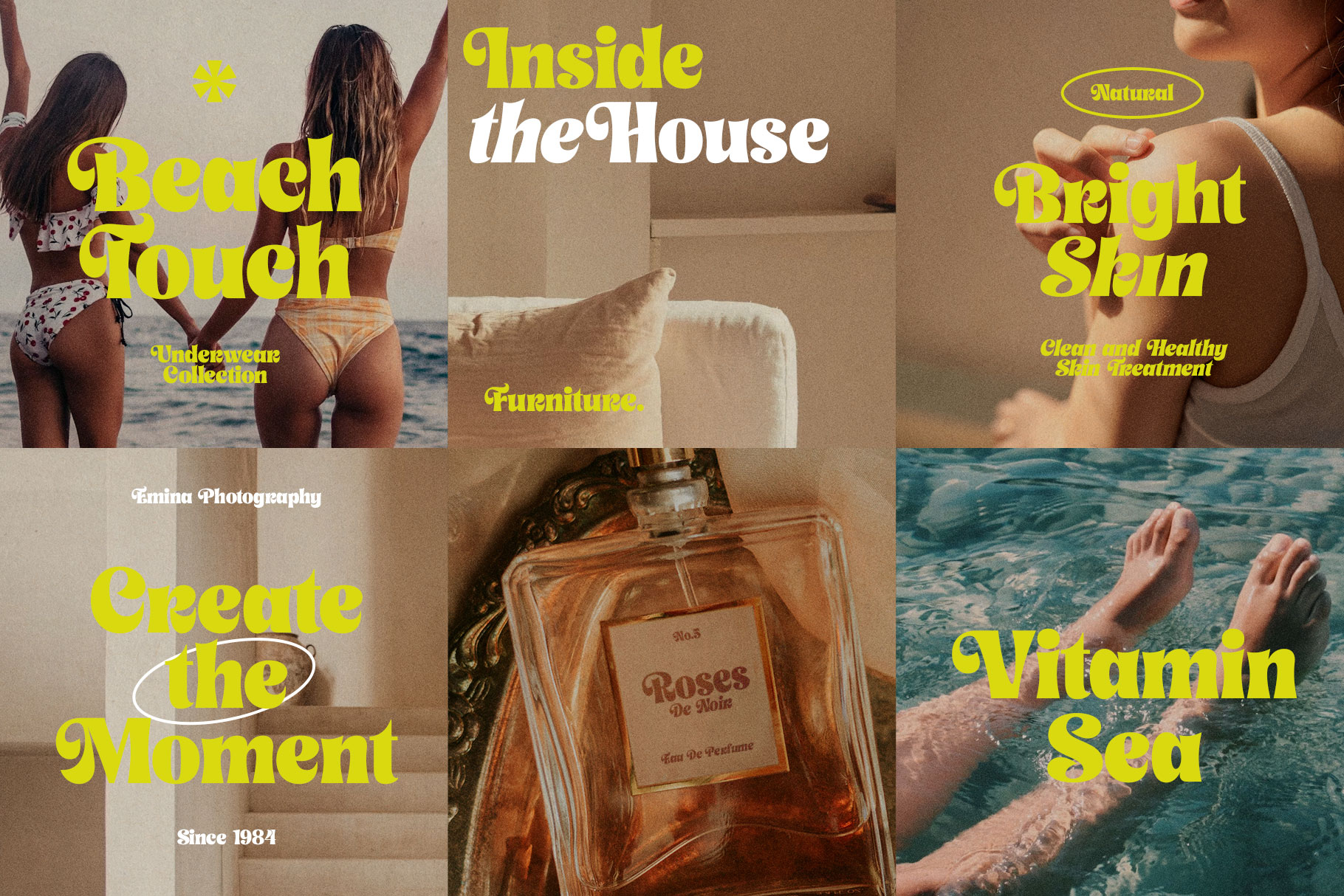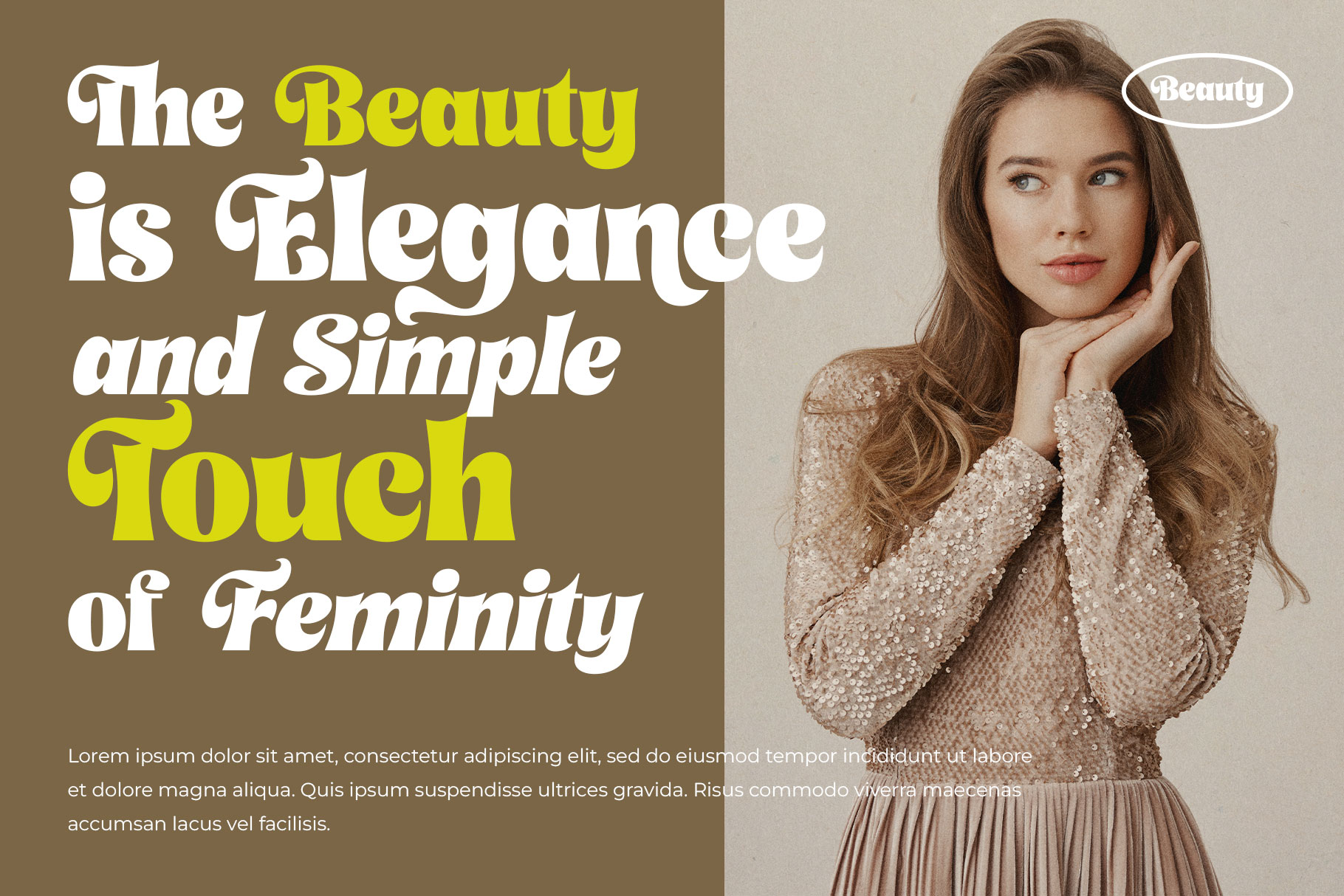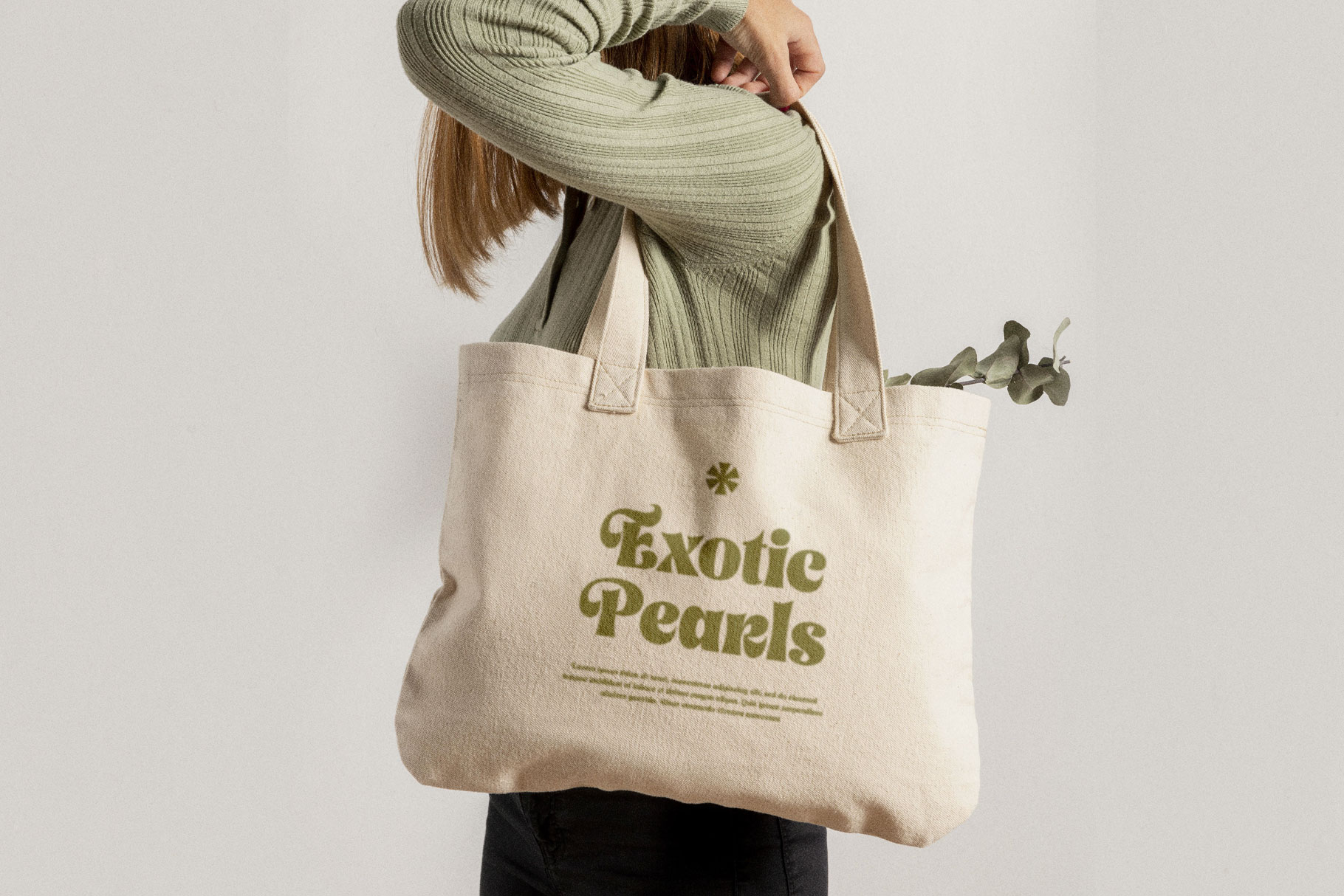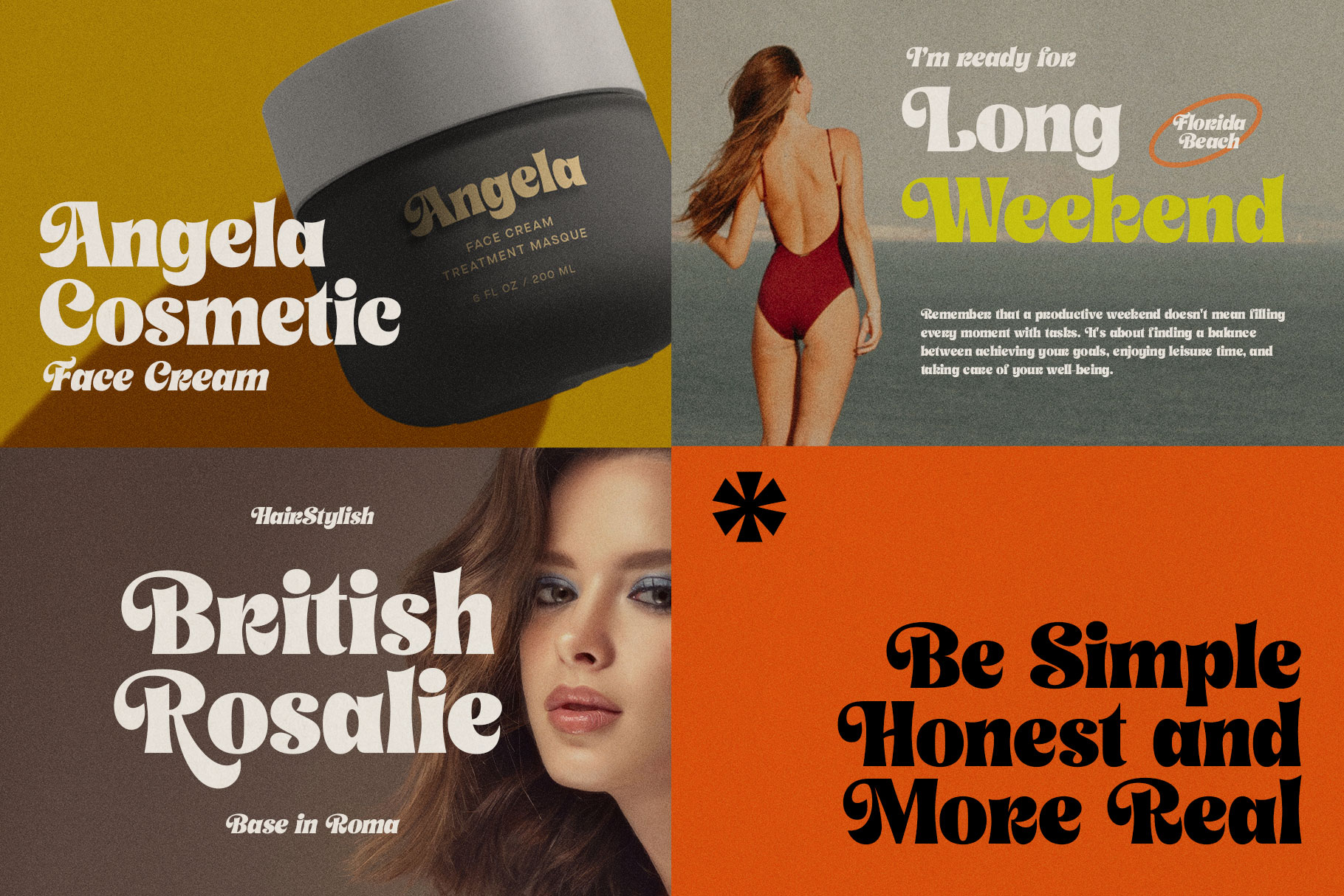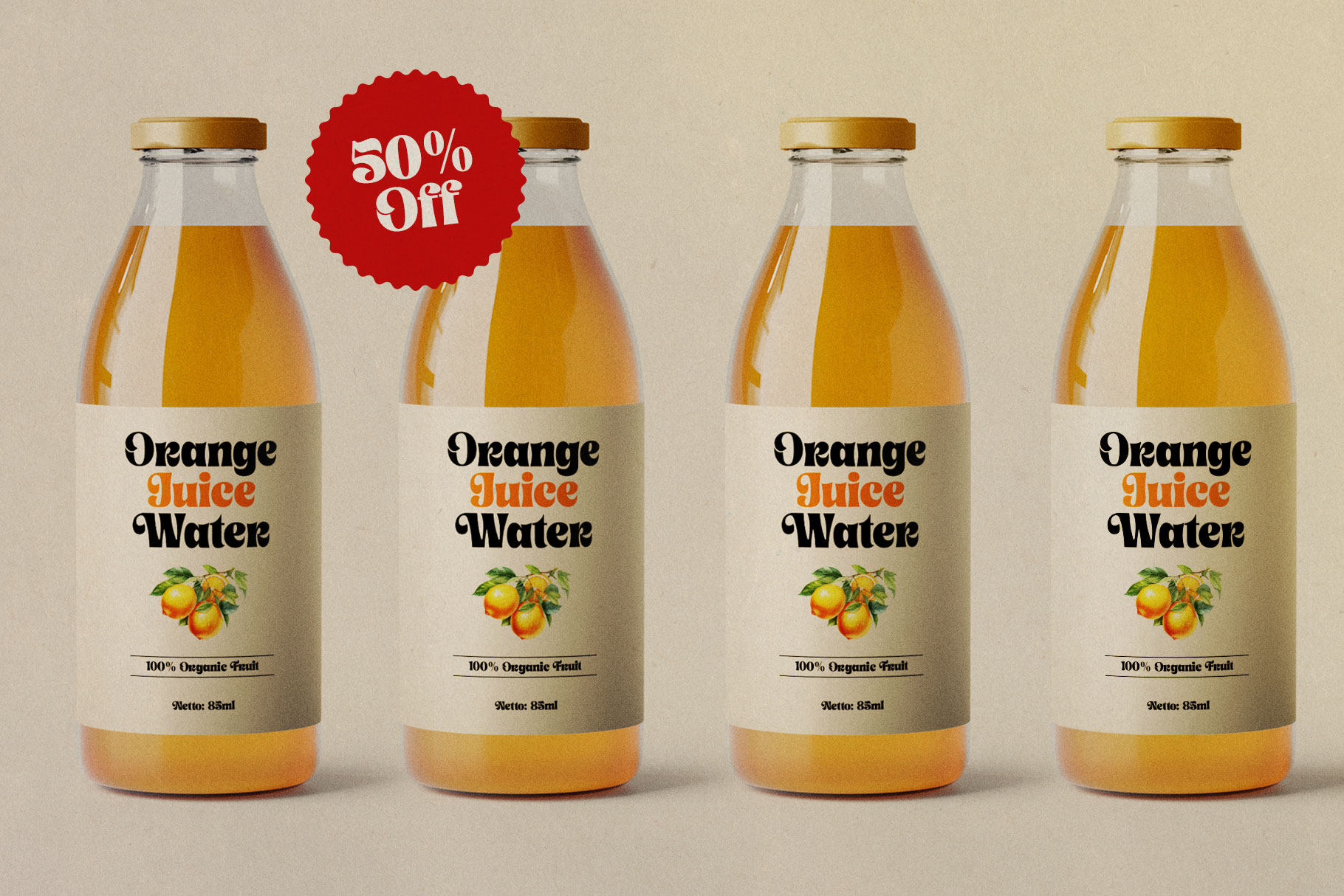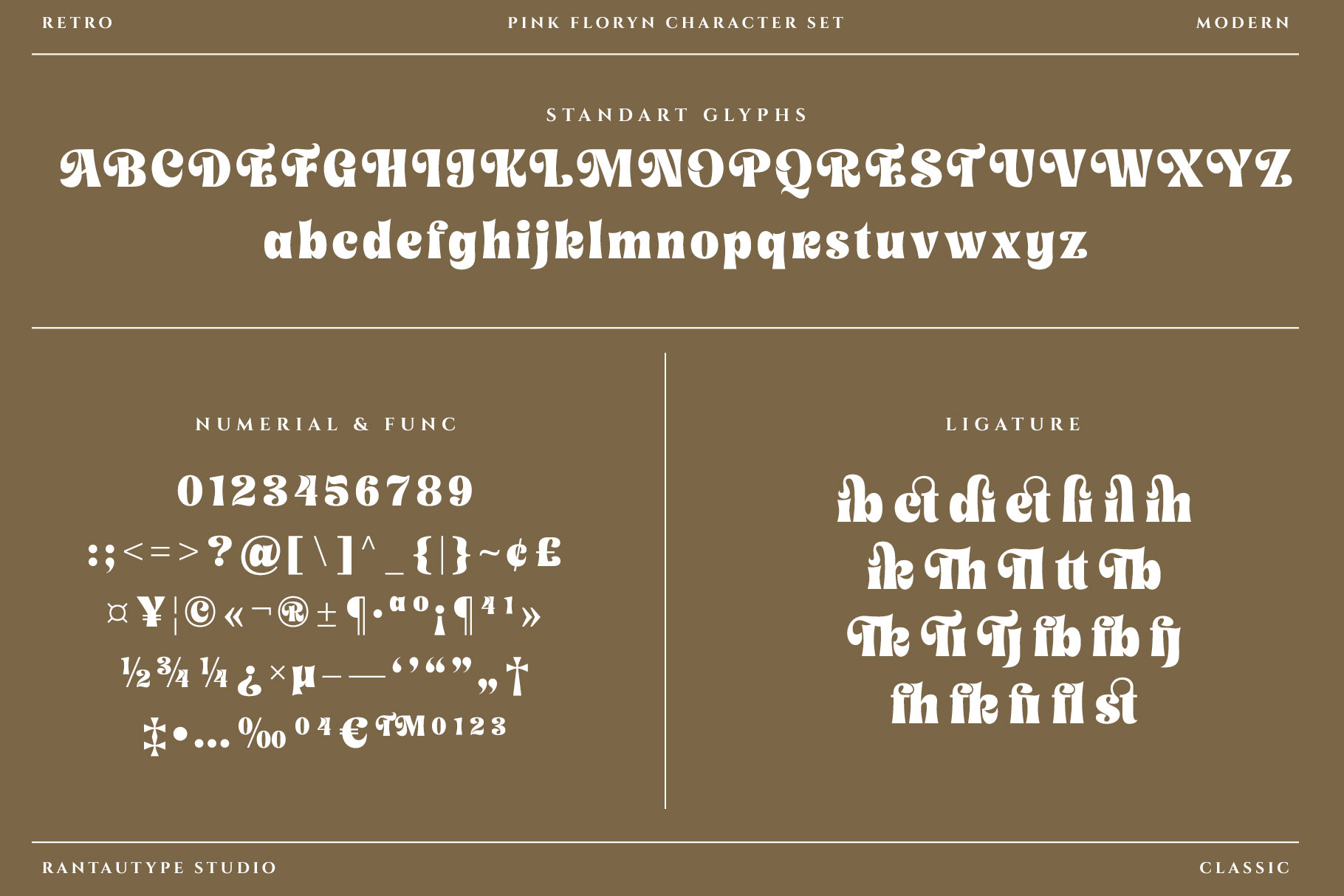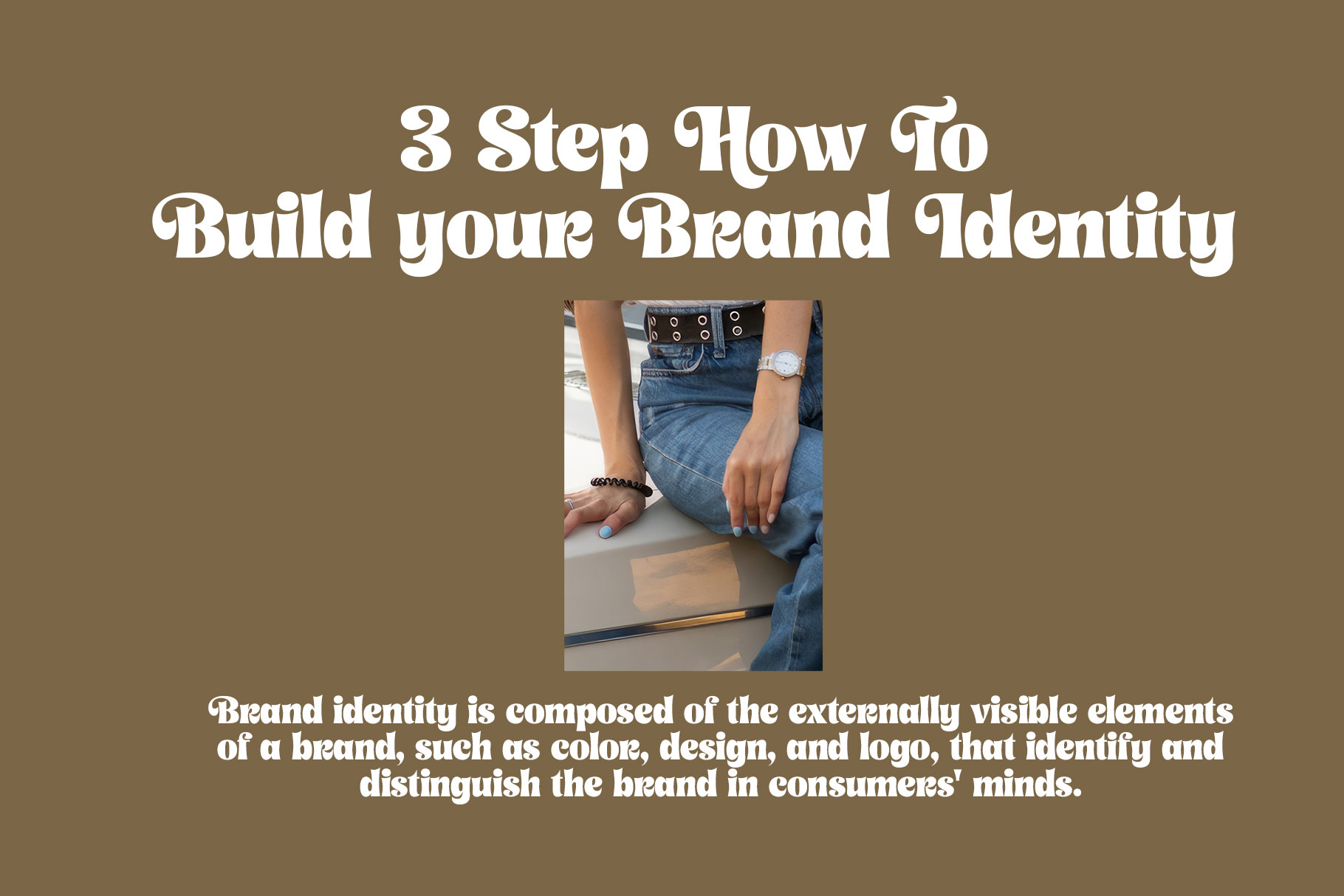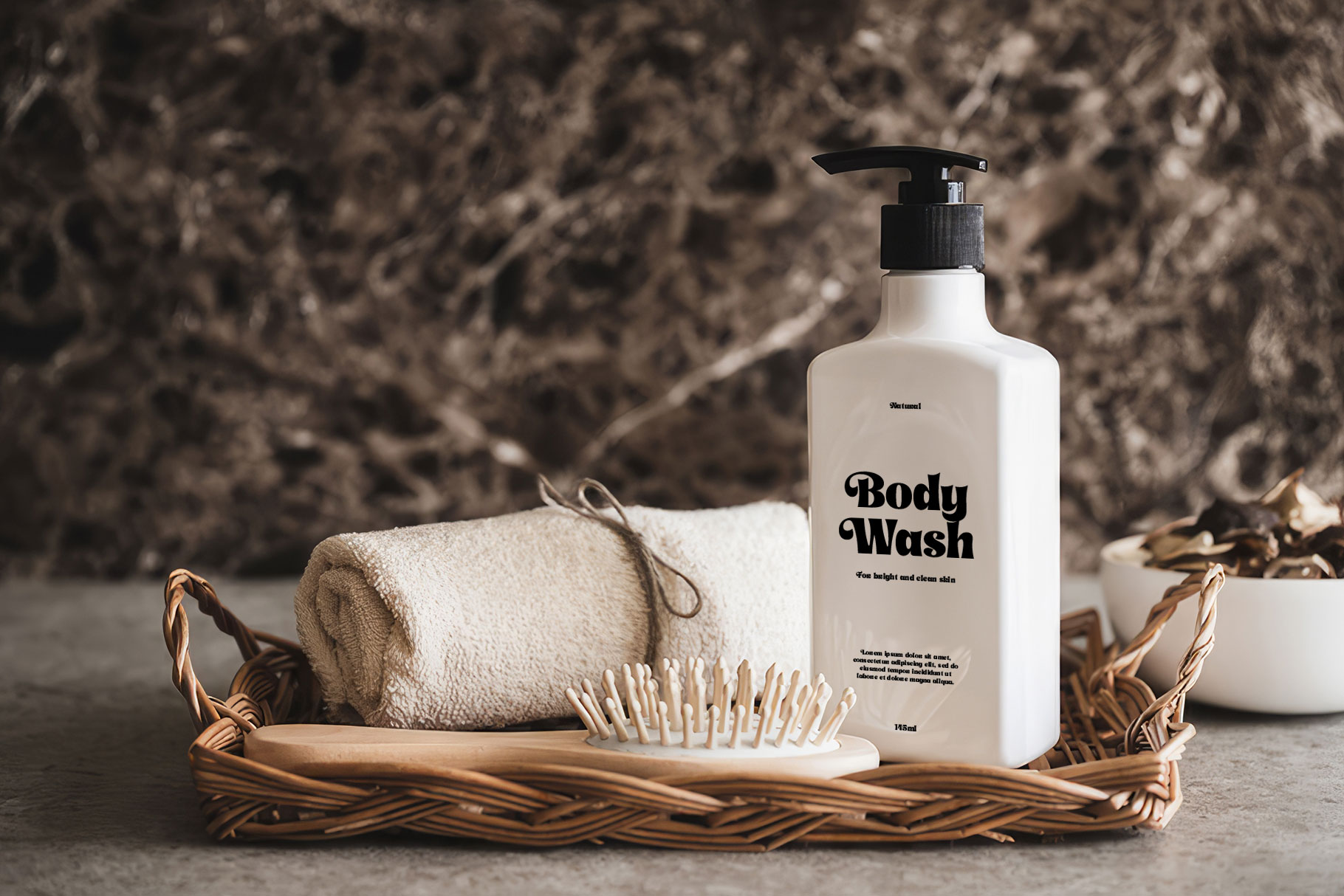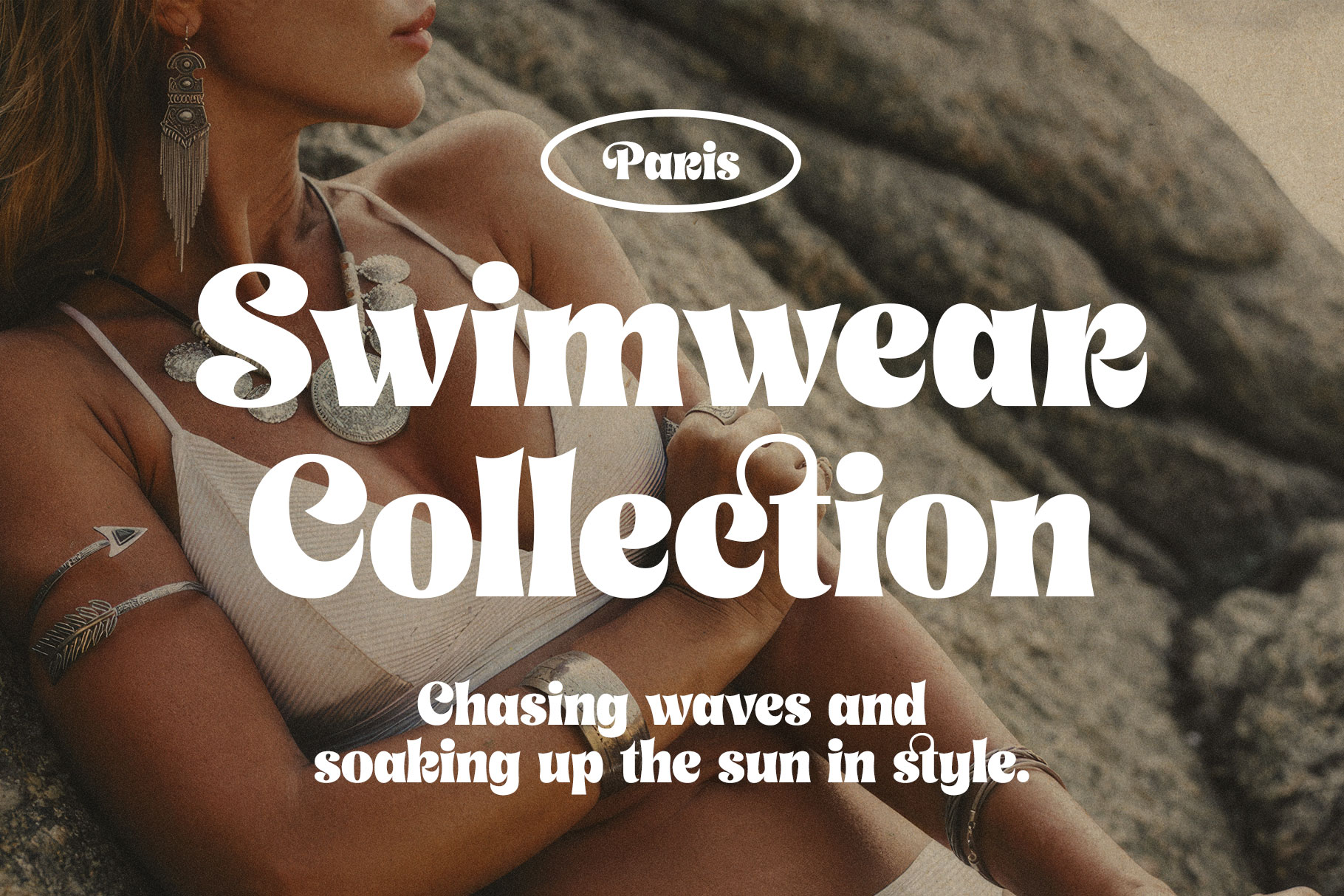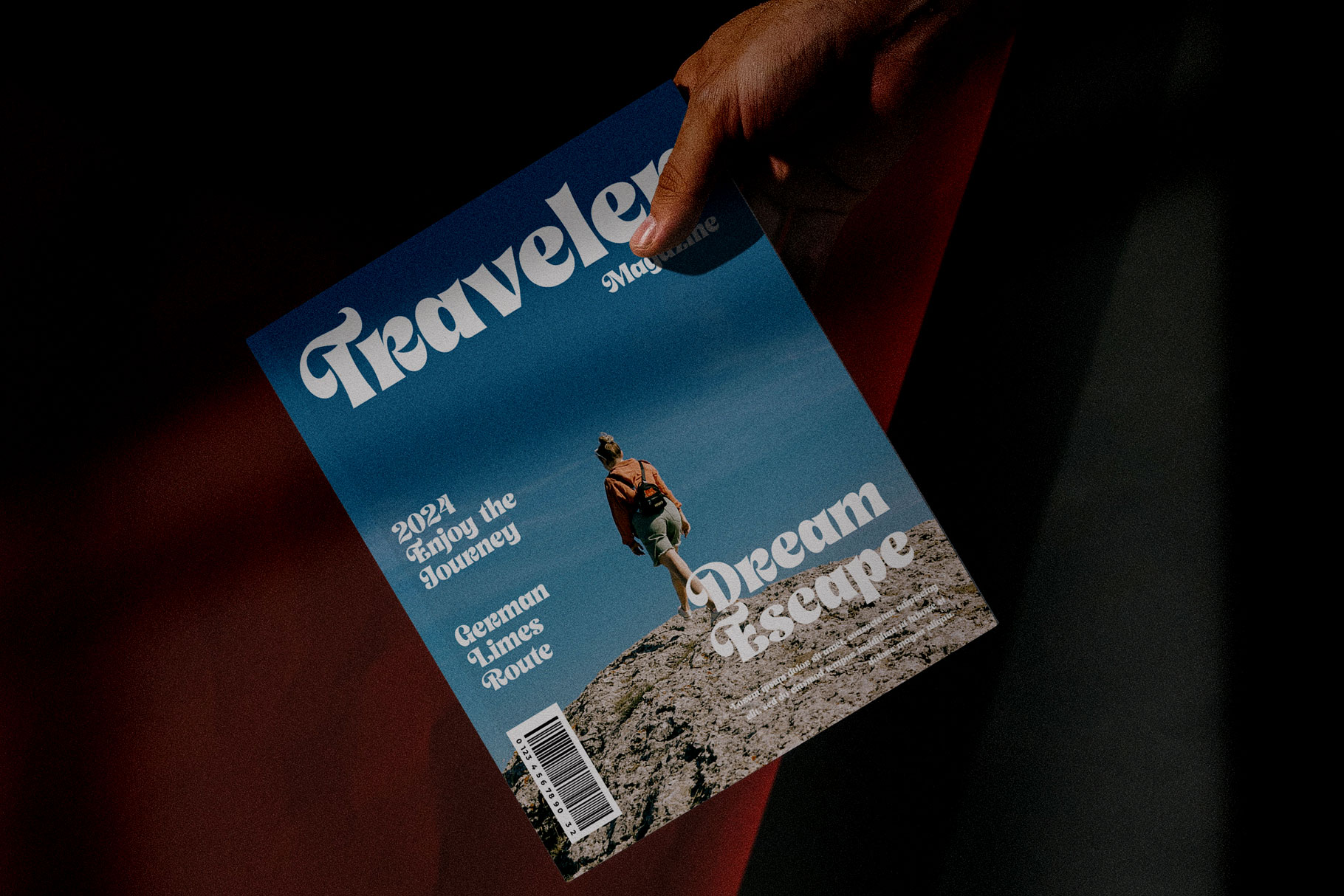
Pink Floryn Bold Retro Serif Font
Pink Floryn is a retro serif font that bold curve make it vintage look and versatile. Pink Floryn is a beautiful choice for any creative endeavor, creating elegant, modern, chic, lifestyle design such as logotype, title, cover, branding, invitations, wedding designs, display and magazine, social media posts, advertisements, printed quotes, product packaging, corporate brand, product designs, labels, photography, watermarks, special events and any other project with retro or vintage touch.